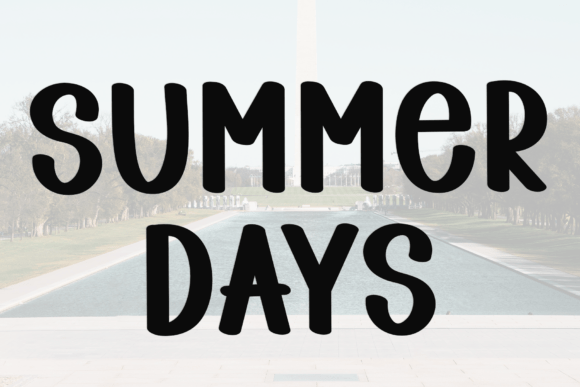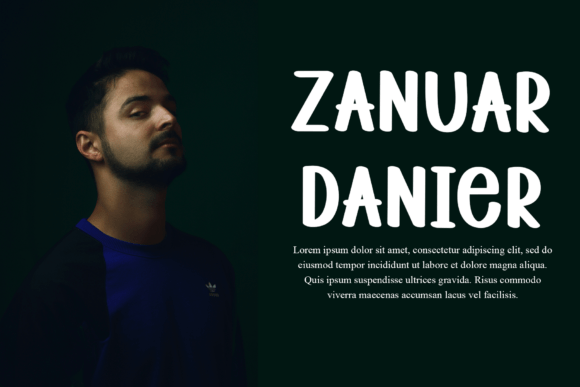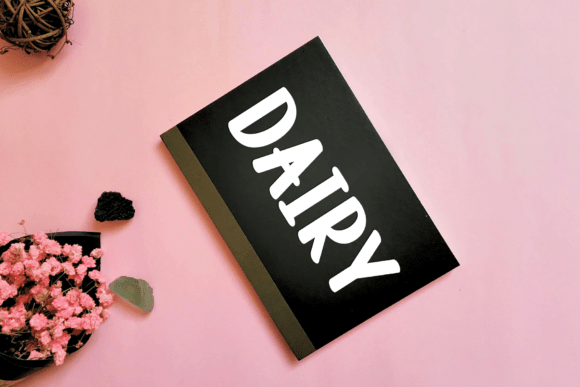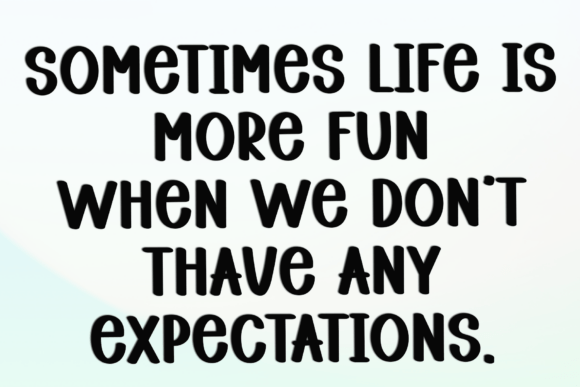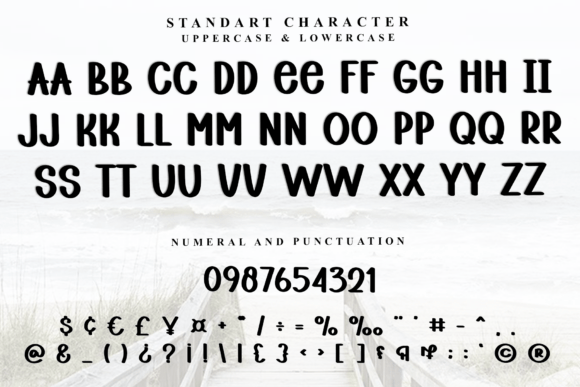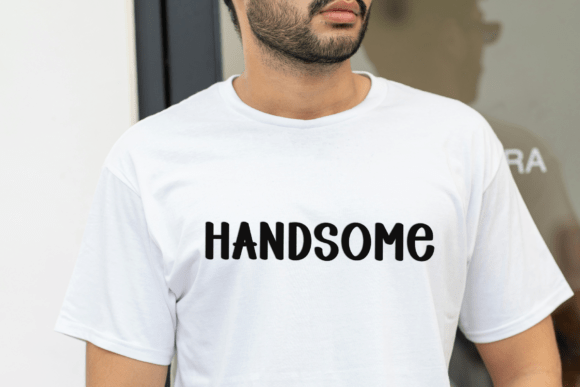
The Perfect Recipe for Your Design: Cooking Mama Font
I’ll never forget the time I was working on a food packaging project for a client, and I just couldn’t seem to find the right font. I wanted something that would evoke the warmth and coziness of home-cooked meals, but still look modern and stylish. That’s when I stumbled upon the Cooking Mama font, and it was love at first sight! 💕
With its soft, rounded touch and clean lines, Cooking Mama instantly added a friendly personality to my design. It was as if the font was saying, “Hey, come on in, and let’s get cooking!” 🍳 In this article, I’ll share my experience with Cooking Mama, and provide you with a comprehensive guide on how to use it in your designs.
Cooking Mama: A Modern and Clean Display Font
Cooking Mama is a modern and clean display font that’s perfect for food packaging, recipe books, kitchen branding, and lifestyle blogs. Its simplicity and friendly personality add a cozy feel to any culinary design. Here are some of the things I love about Cooking Mama:
- ✨ Soft, rounded touch that adds warmth to your design
- ✅ Clean lines and modern feel that make it perfect for display text
- 🌟 Friendly personality that evokes the charm of home-cooked meals
- 📚 Highly legible, even at small sizes
Honest Review: The Good and the Quirks
While I absolutely love Cooking Mama, there are a few quirks to be aware of:
- 🤔 Limited character set: Cooking Mama is a display font, so it’s best used for headlines and titles. It may not be suitable for body text.
- ⚠️ Not suitable for very small sizes: While Cooking Mama is legible at small sizes, it may lose some of its charm and character.
The Story Behind Cooking Mama
Cooking Mama was designed by a team of typographers who wanted to create a font that would evoke the warmth and charm of home-cooked meals. Inspired by the nostalgia of family recipes and home-cooked meals, Cooking Mama is a font that’s sure to add a cozy touch to any culinary design.
| Font Name | Cooking Mama Font |
| What is Cooking Mama font? | Cooking Mama is a modern and clean display font with a soft, rounded touch that’s perfect for food packaging, recipe books, and kitchen branding. |
| Is Cooking Mama suitable for body text? | No, Cooking Mama is a display font that’s best used for headlines and titles. It may not be suitable for body text. |